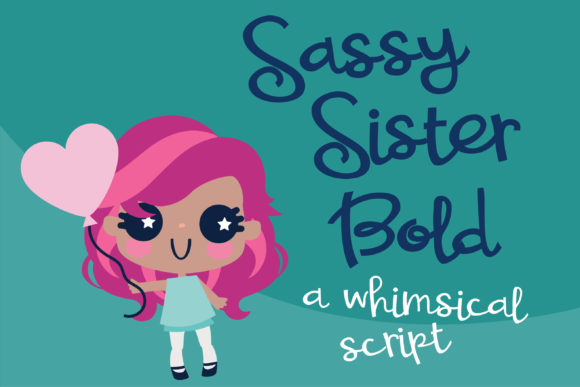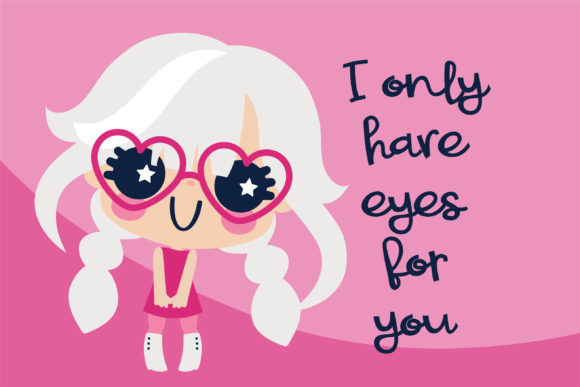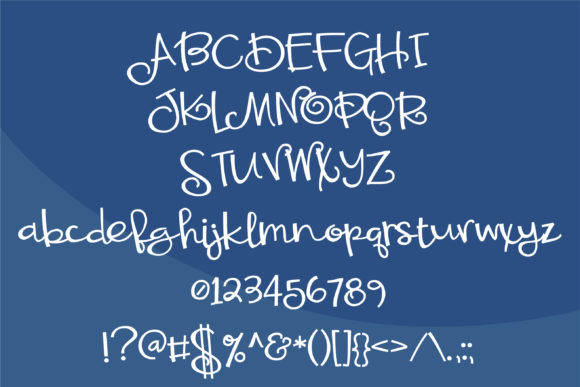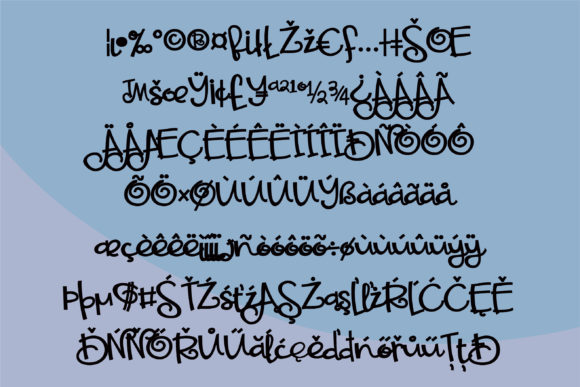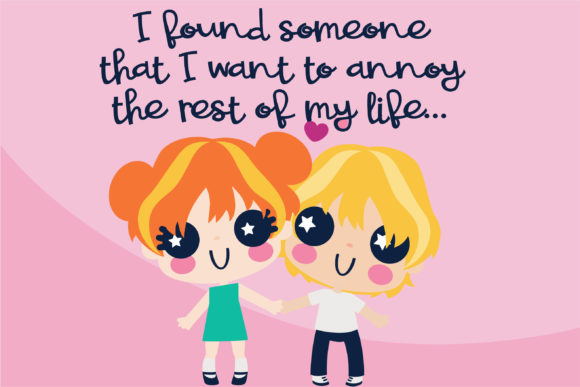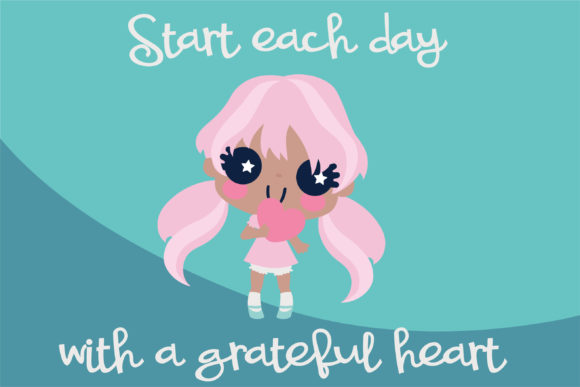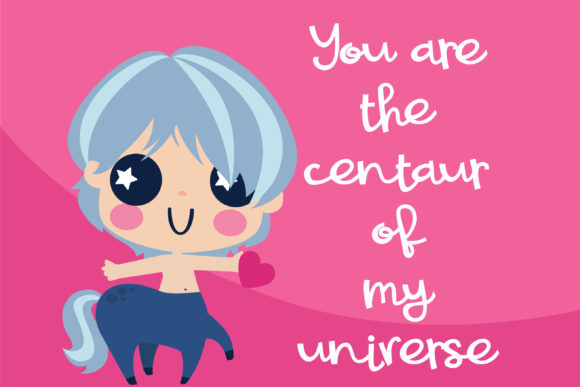
Sassy Sister Font
About Sassy Sister Font
Sassy Sister is a romantic and friendly handwritten font, designed to make your projects come alive. Use this gorgeous and unique font to bring any DIY project to life!